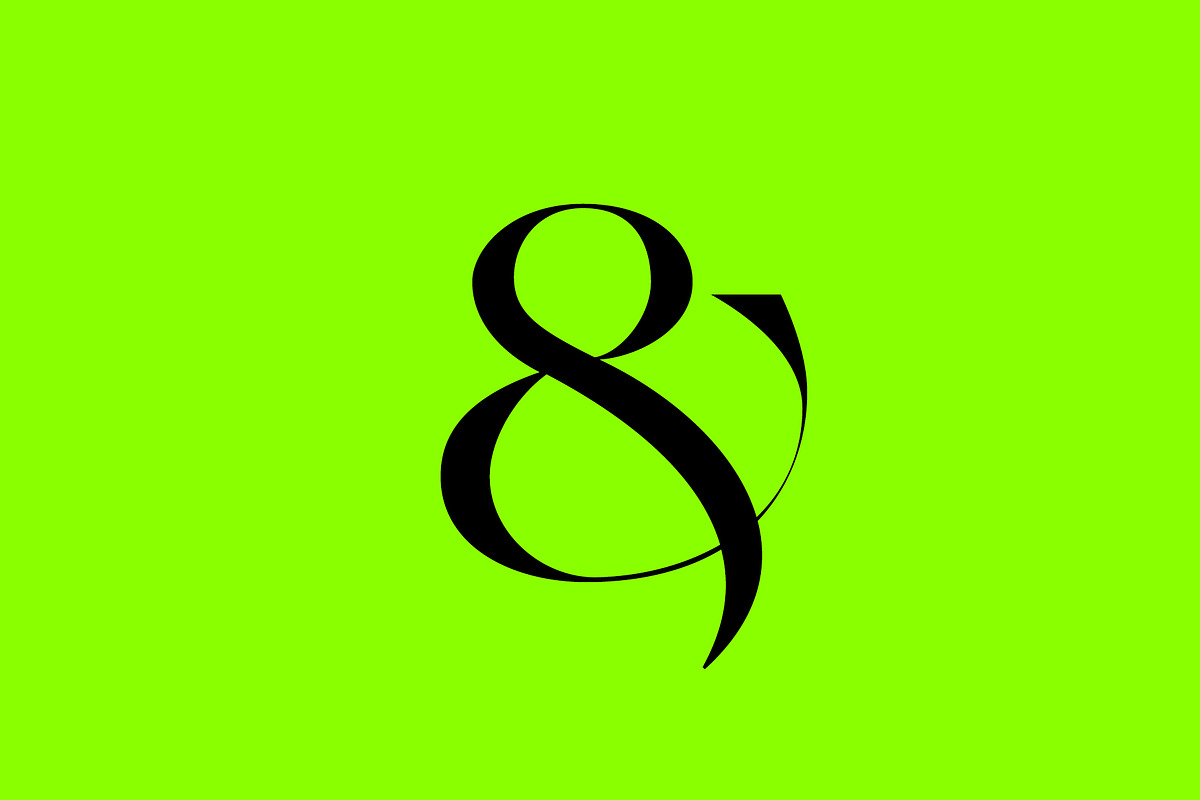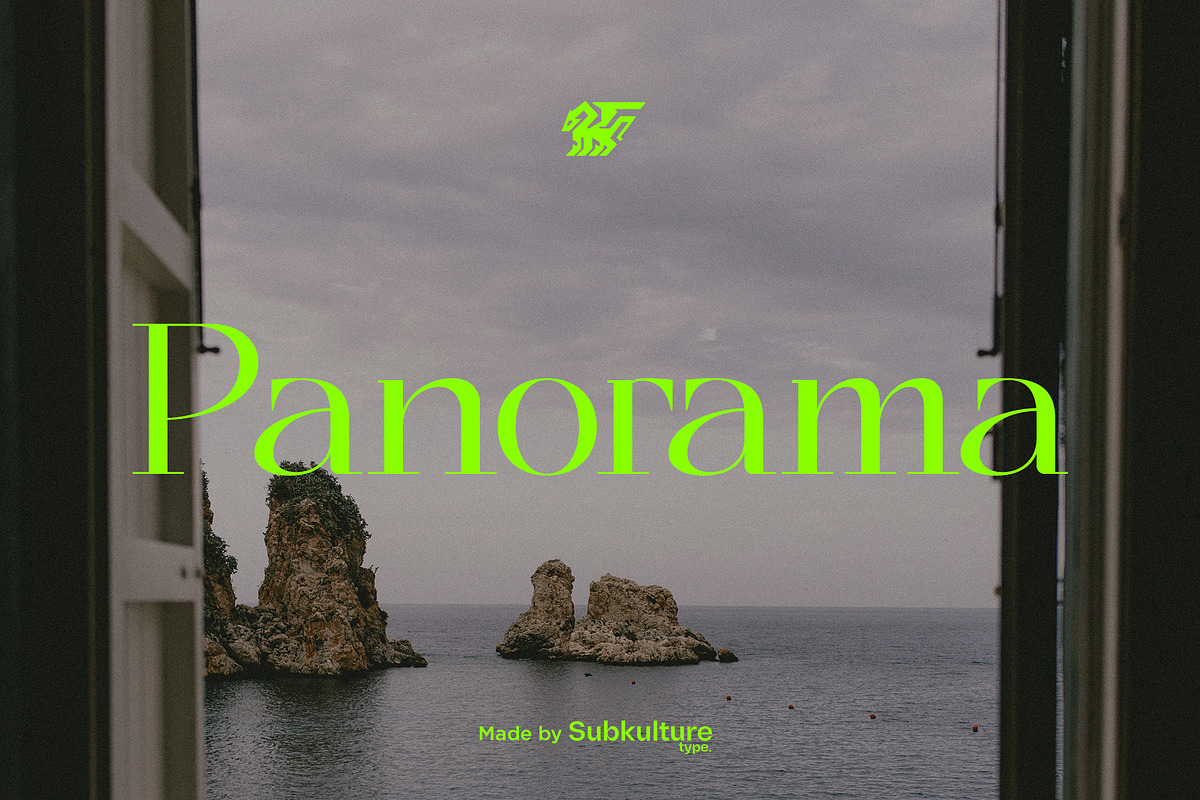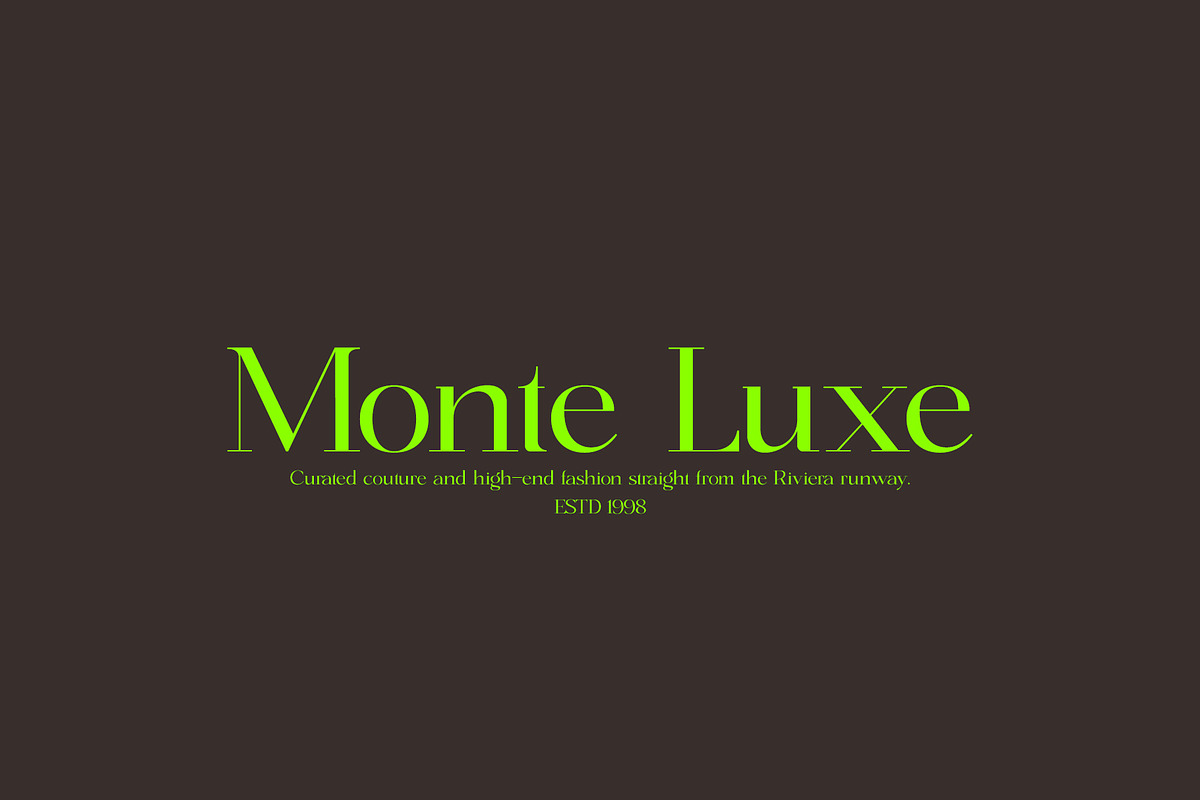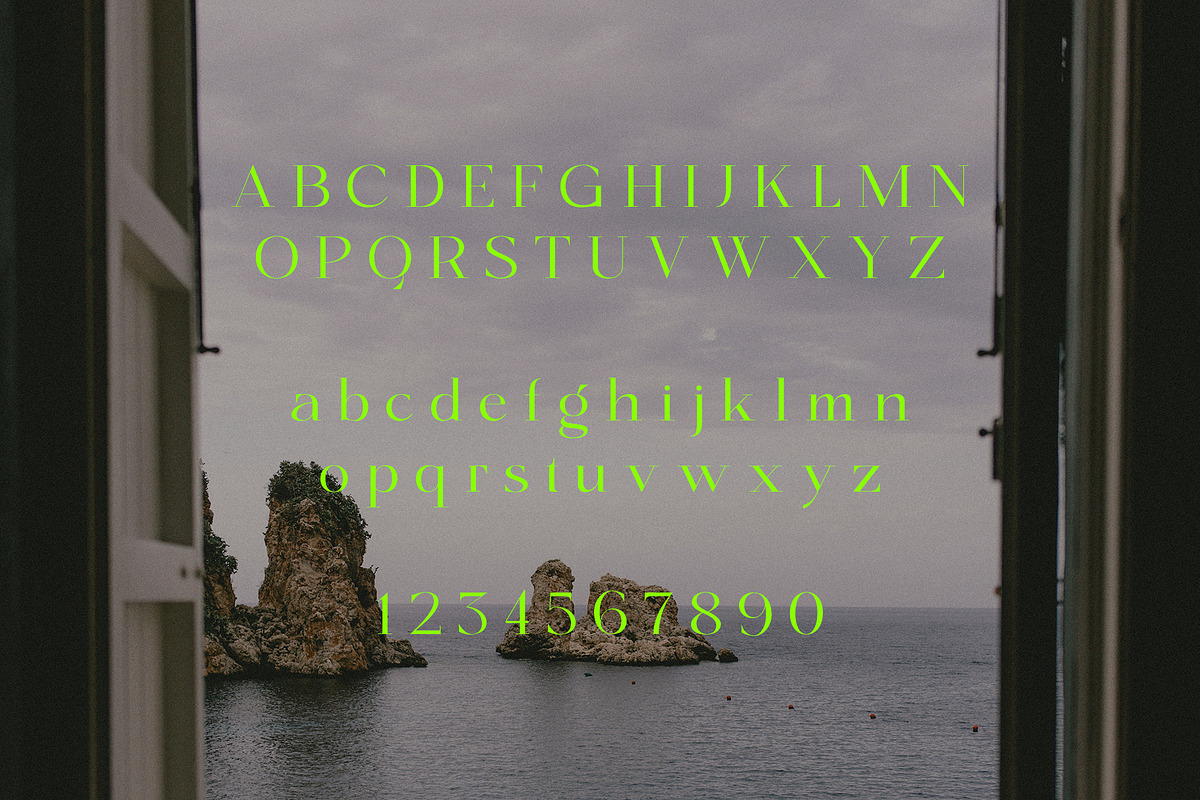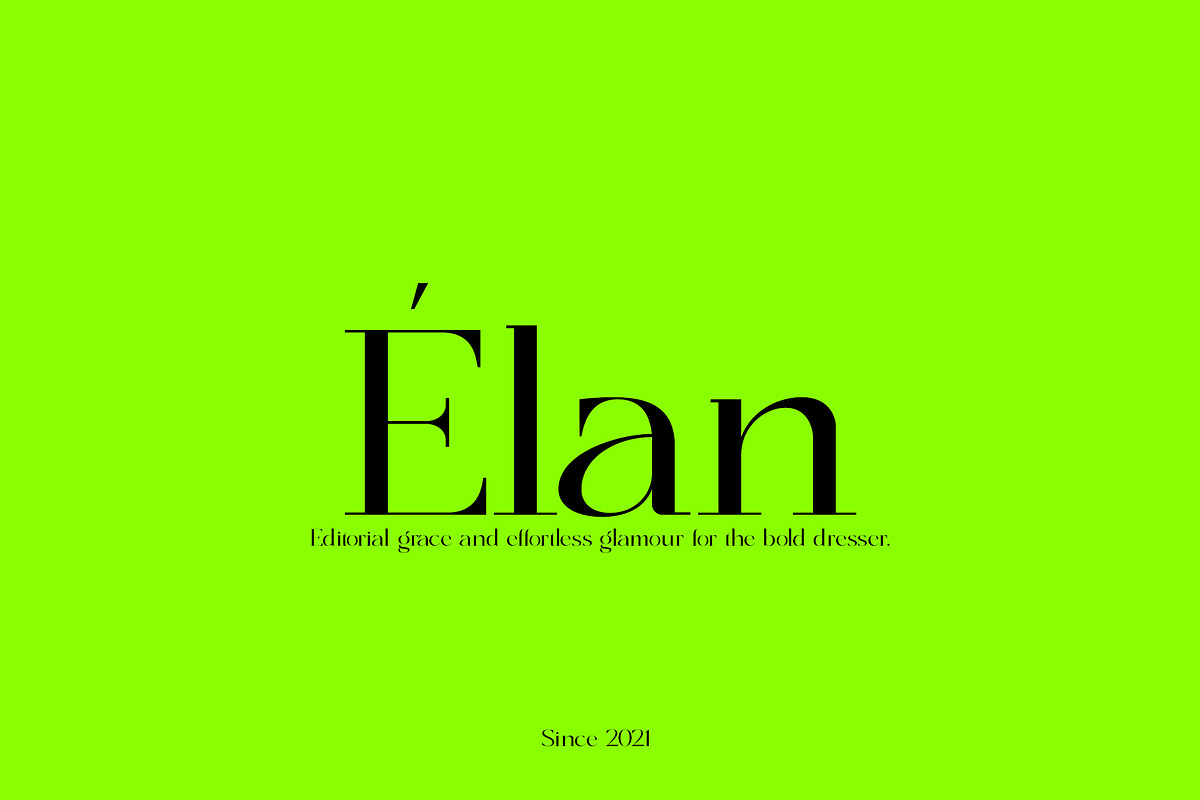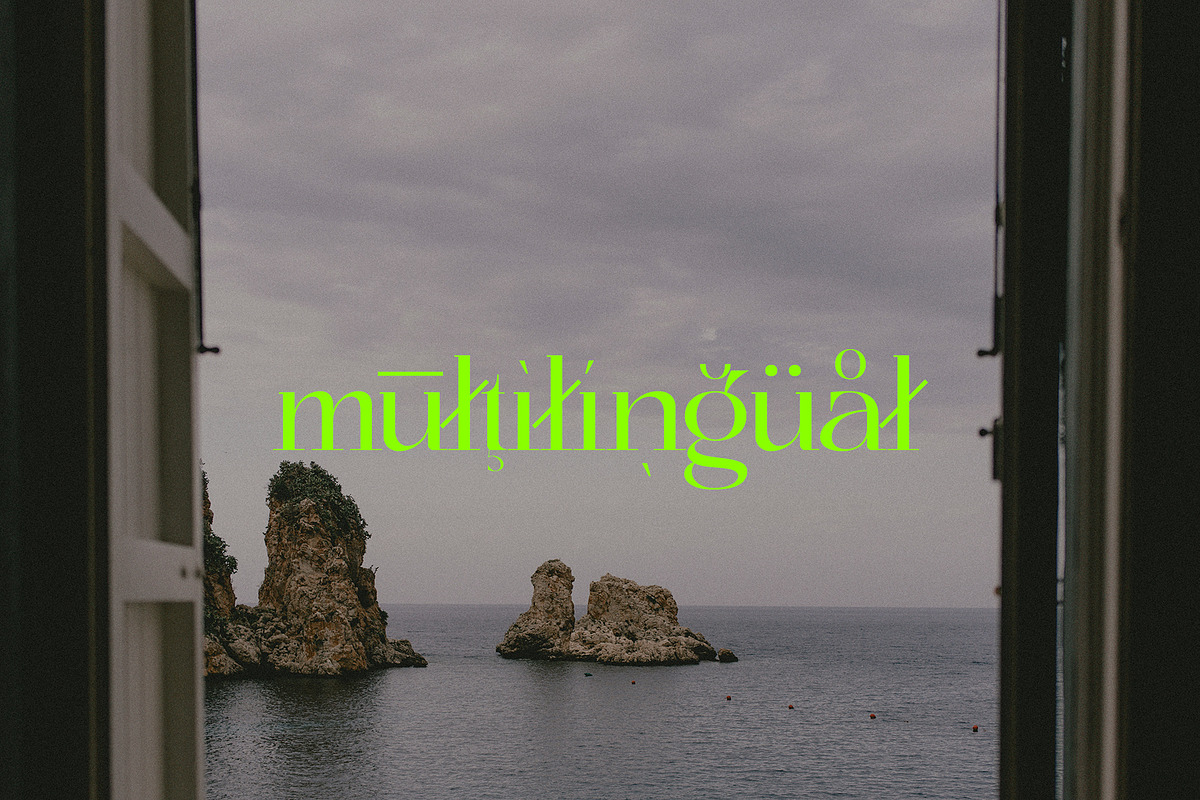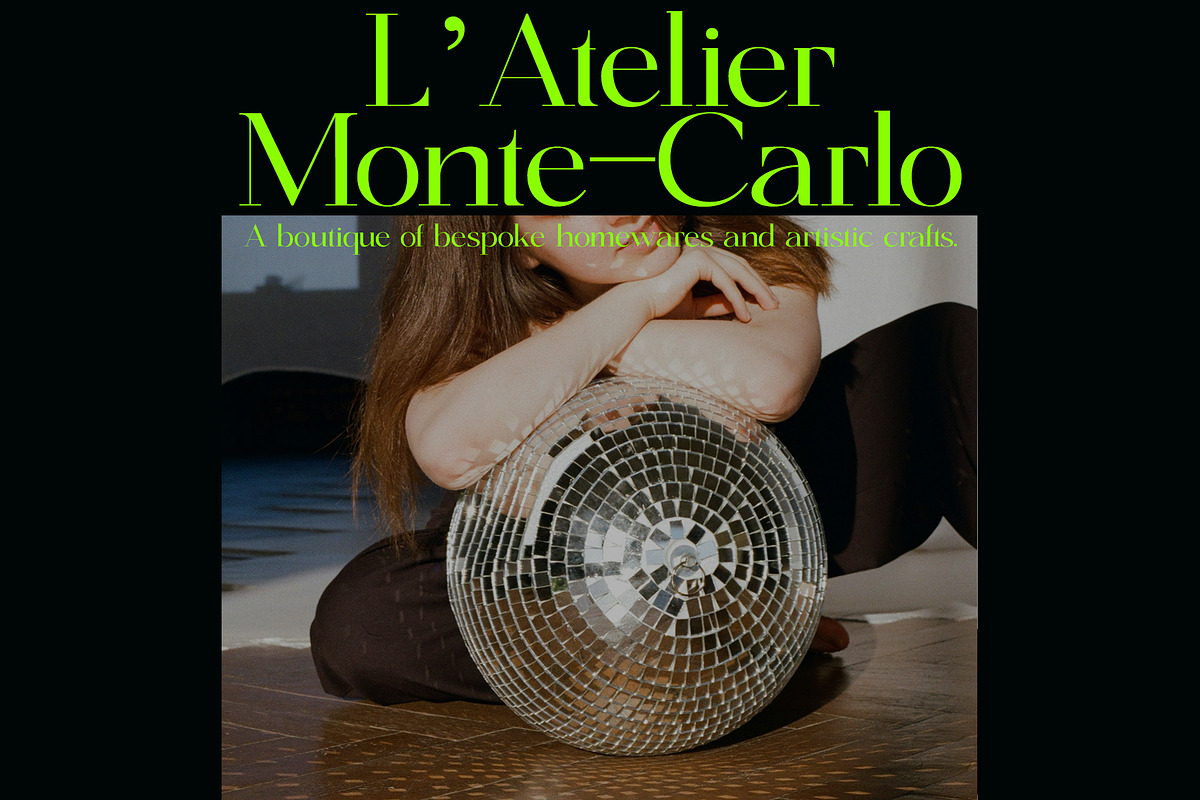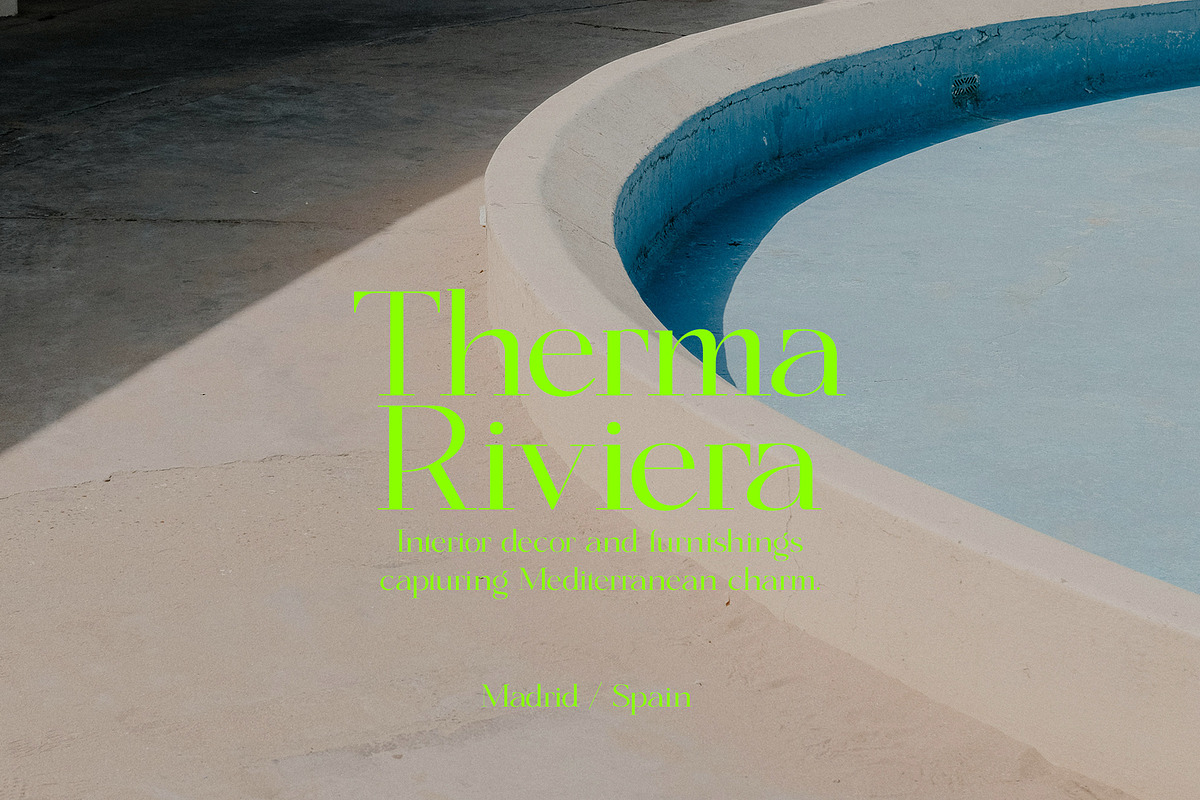
Panorama - Classical Serif
Panorama – Classical Serif is a refined and timeless typeface that embodies the elegance of traditional serif design with a modern sensibility. Featuring gracefully tapered strokes, balanced proportions, and distinctive serifs, Panorama evokes the sophistication of classical typography while maintaining clarity and versatility for contemporary use. Ideal for editorial design, branding, and high-end print materials, this font conveys a sense of heritage and authority without sacrificing readability. Whether used in headlines or body text, Panorama – Classical Serif offers a harmonious blend of beauty and function, making it a distinguished choice for designers seeking both tradition and refinement.
Panorama features uppercase & lowercase letters, numbers & symbols, multilingual support, over 250+ glyphs.